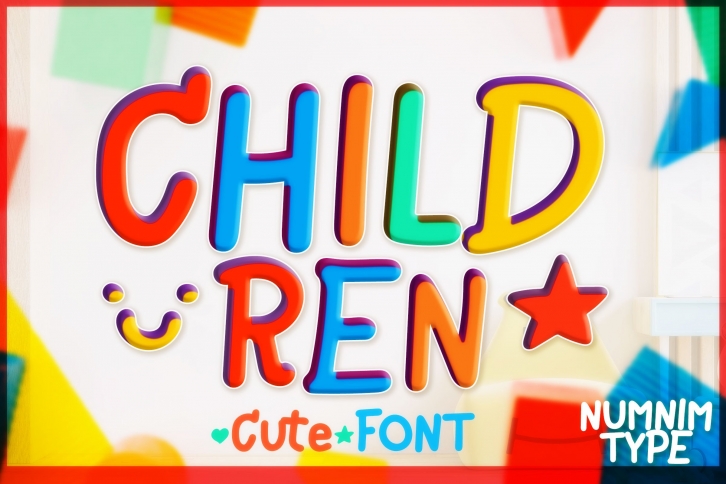
Children is a cute and uniquely crafted handwritten font. Its fun and playful characters make it the perfect font for stickers, mugs, t-shirts, ornaments, summer event cards, and more! This font is PUA encoded which means you can access all glyphs and swashes with ease!